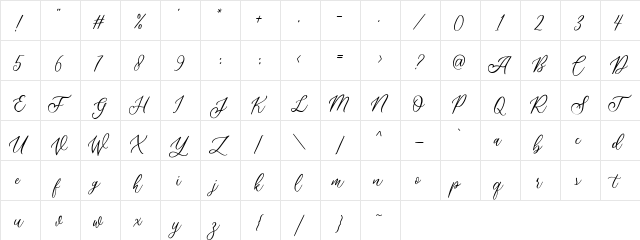
Athalia Script DEMO Regular
Design Context for Athalia Script DEMO Typeface
Athalia Script DEMO flows with the natural rhythm of handwritten lettering, making it ideal for designs that call for warmth and personal expression.